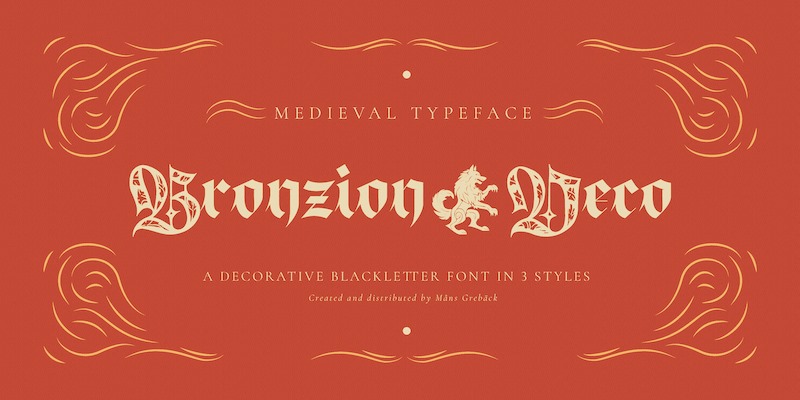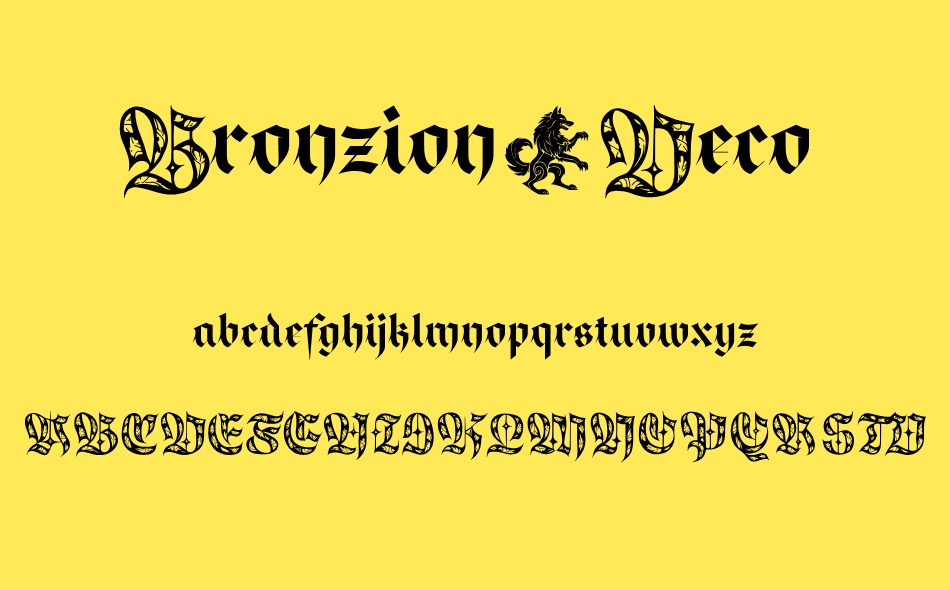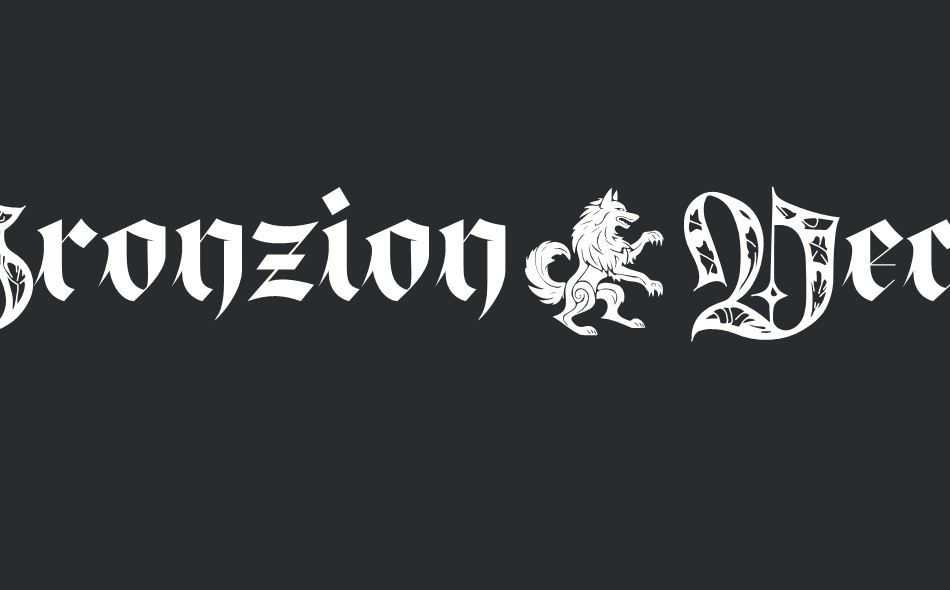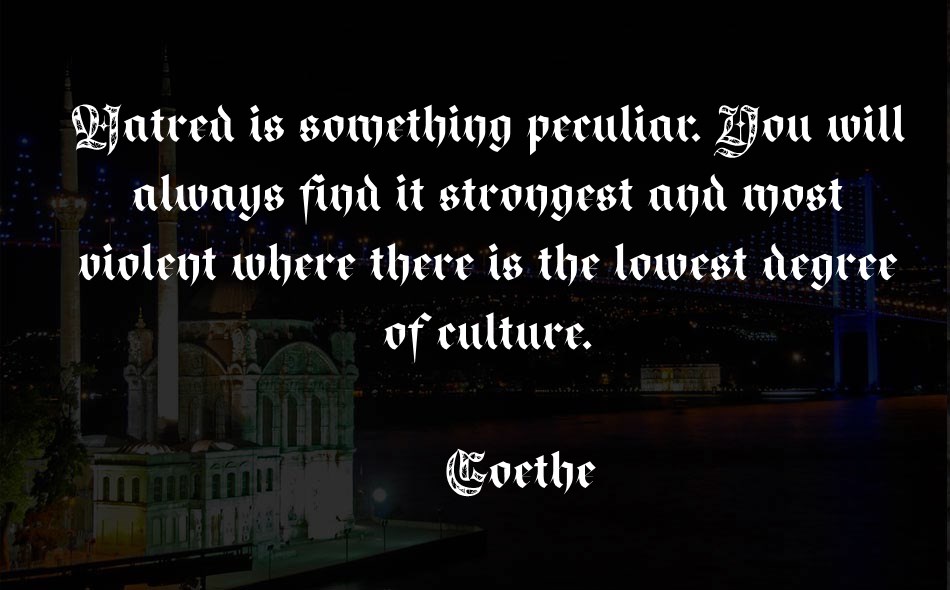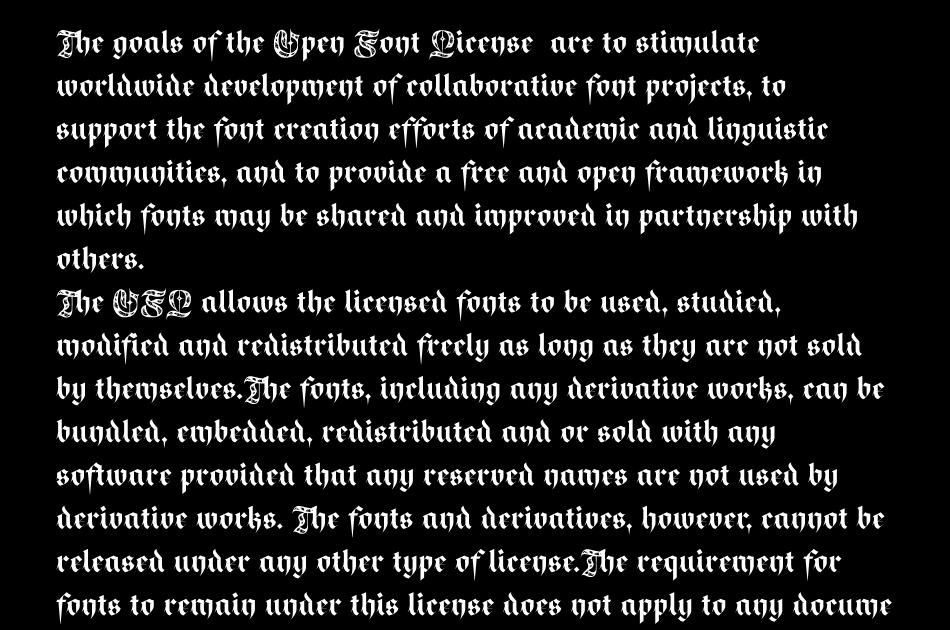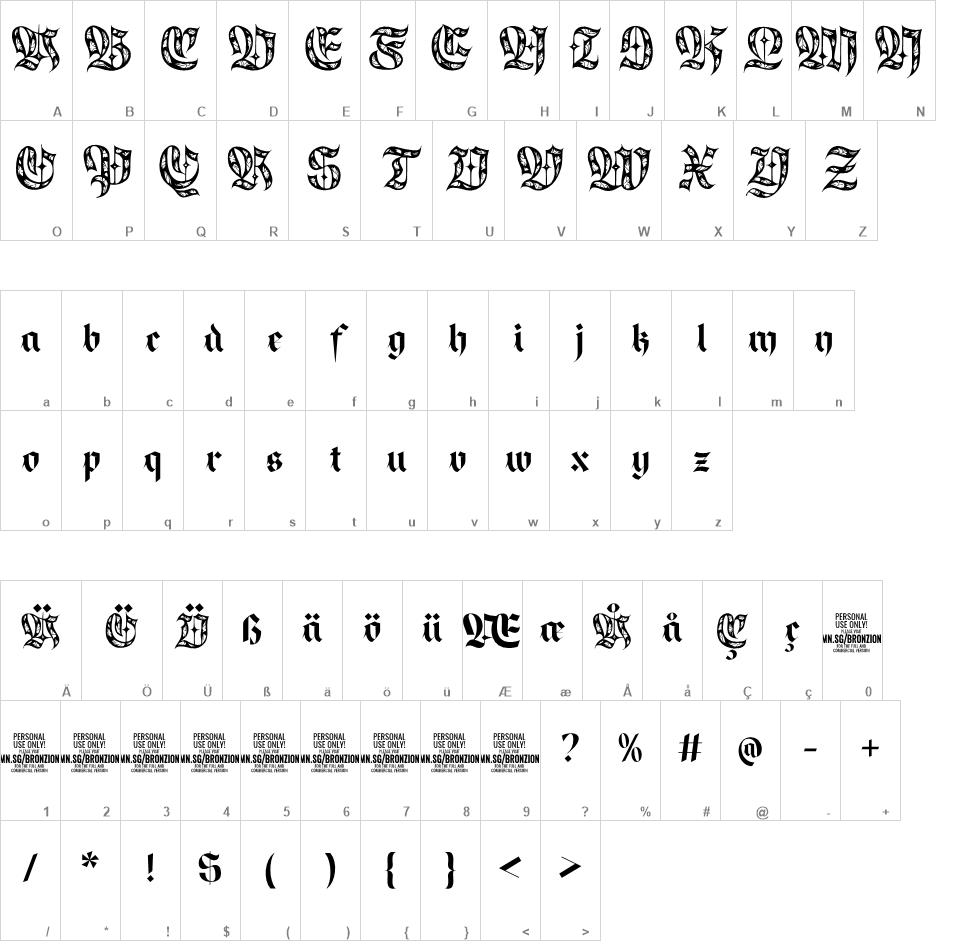
Bronzion Deco font
Bronzion Deco is an illuminated blackletter typeface rooted in medieval aesthetics.
Use characters 🌲🌳🎠🐂🐅🐆🐈🐉🐎🐕🐦🐯🐲🐺👑👸🗡🤴🦁🦅🦇🦌🦎🦓🦖 to create heraldry-like logos and symbols.
Example: Magic🐉Empire
Bronzion Deco is an illuminated blackletter typeface rooted in medieval aesthetics.
With its dark ages inspiration, Bronzion Deco is a captivating blend of calligraphy and heavy metal undertones. The typeface captures the ornamental beauty of middle ages manuscripts while catering to modern design needs. Its heavy, intricate design makes it perfect for projects that require a touch of medieval grandeur.
Bronzion Deco is adorned with large, floral capital letters, making it a decorative masterpiece for ornate projects.
Use characters ?????????????????????????????????????????????????? to create heraldry-like logos and symbols.
Example: Magic??Empire
Bronzion Deco is built with advanced OpenType functionality and has a guaranteed top-notch quality, containing stylistic and contextual alternates, ligatures, and more features; all to give you full control and customizability. It has extensive lingual support, covering all Latin-based languages, and includes all the characters and symbols you'll ever need.
Behind this elegant creation is Mans Greback. Known for his ability to infuse classical elements into modern designs, Greback has once again proven his versatility with Bronzion. His portfolio is an ever-growing collection of typographic brilliance, each typeface a unique story in itself.